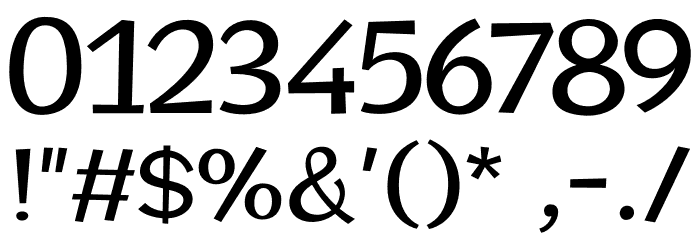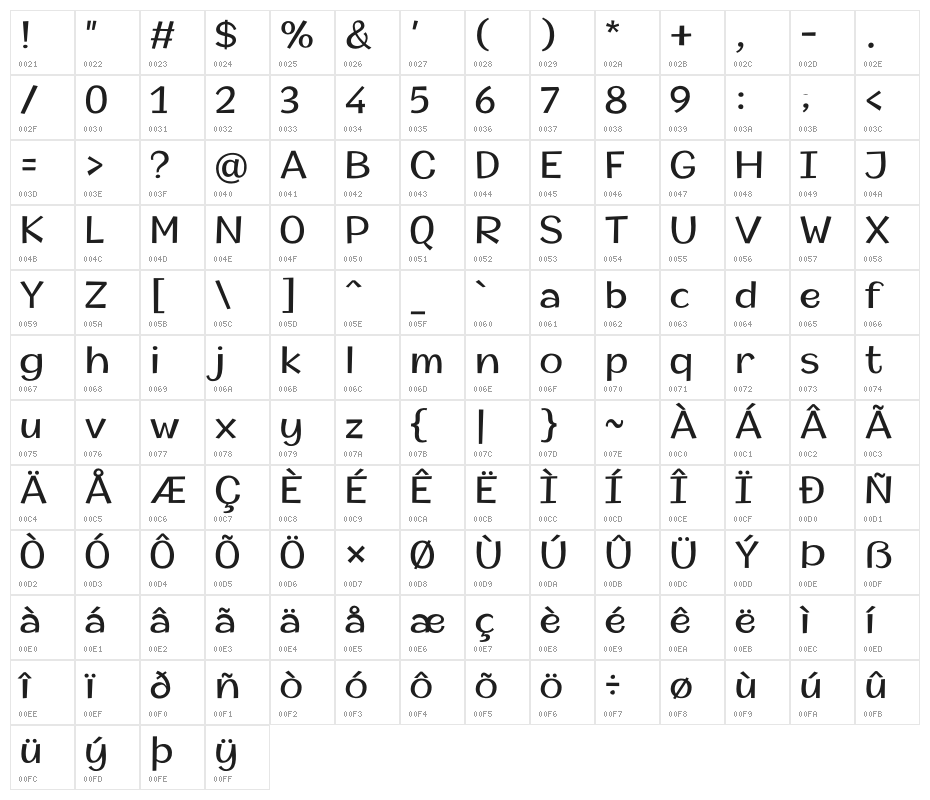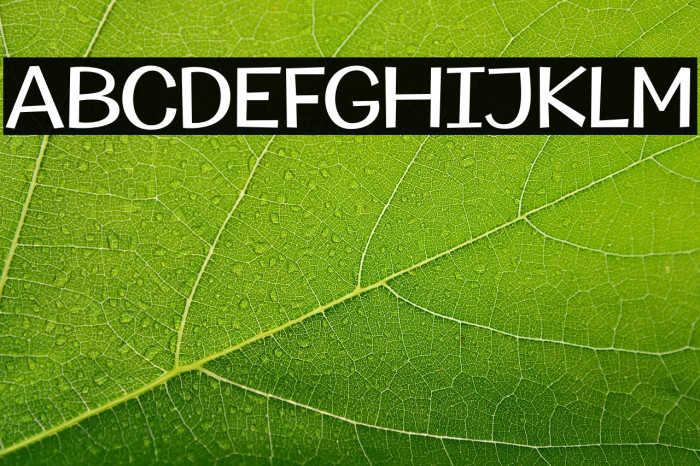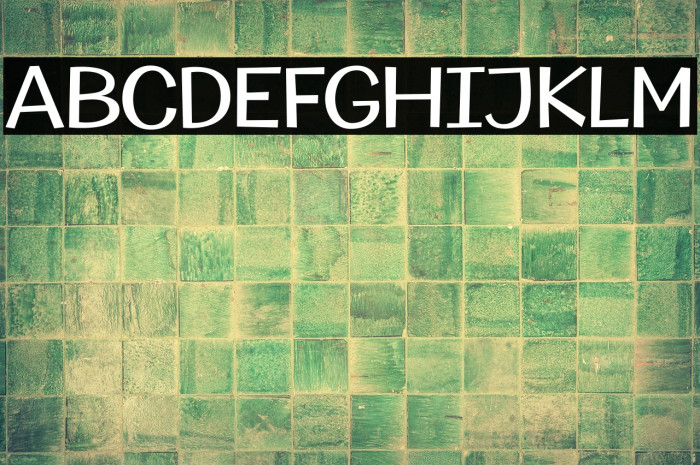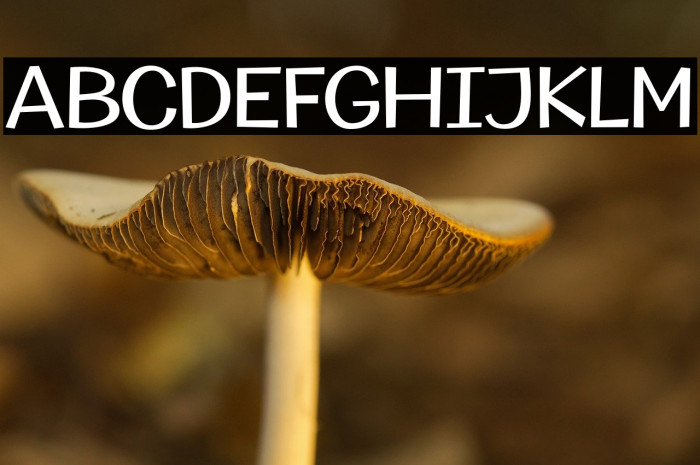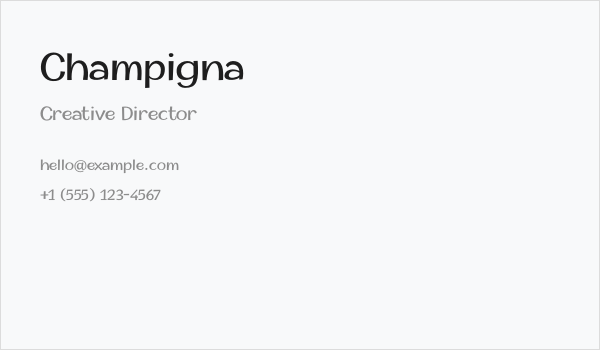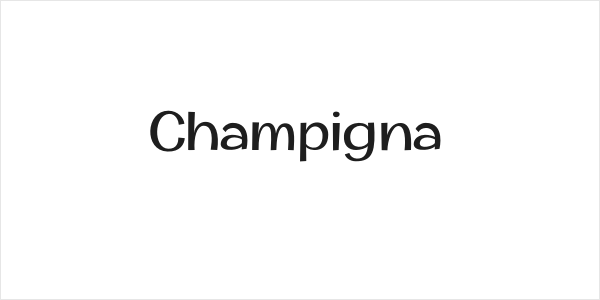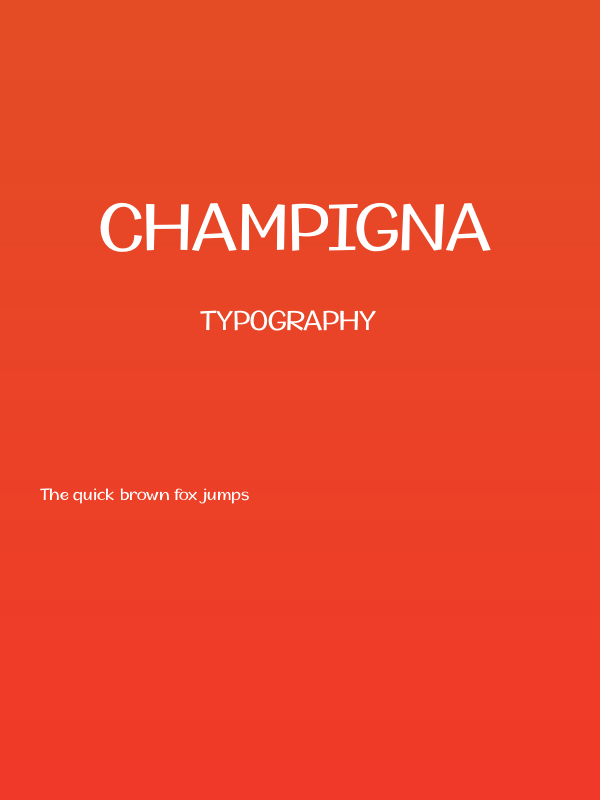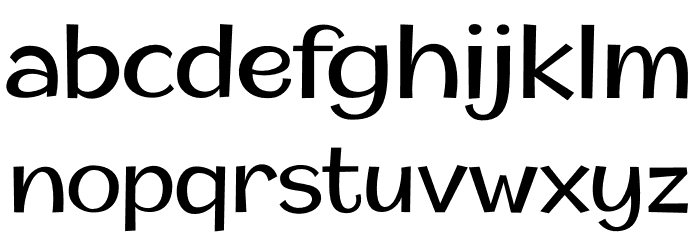
Champigna Font
Champigna Description
This font features a playful and slightly whimsical design with a handwritten feel. The letters are bold and rounded, giving them a friendly and approachable appearance. The uppercase letters are slightly taller than the lowercase, maintaining a consistent width that adds to the uniformity of the font. The numerals are clear and easy to read, matching the style of the letters. Special characters are included, maintaining the same playful style. This font is versatile, suitable for both casual and professional settings, and can be used to add a touch of personality to any project.
Overall StylePlayful
Use CaseHeadlines, Logos, Casual text
Proposed ProjectsIdeal for children's books, greeting cards, playful branding, and social media graphics.